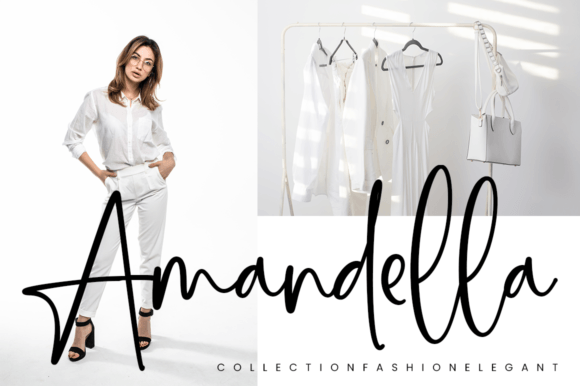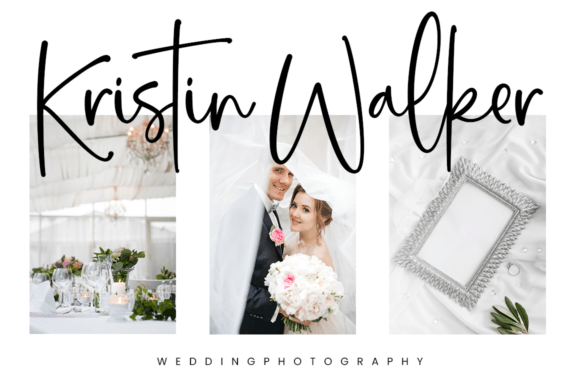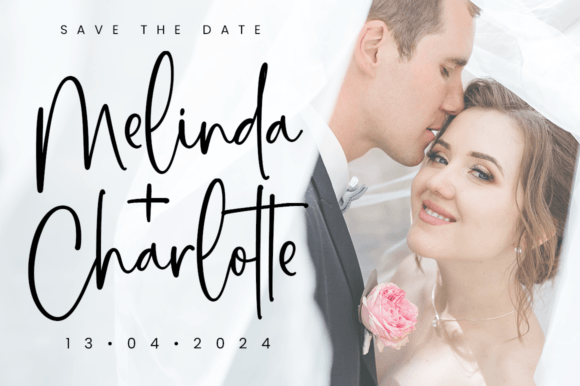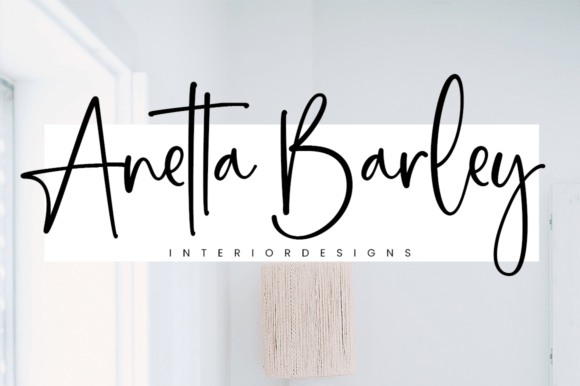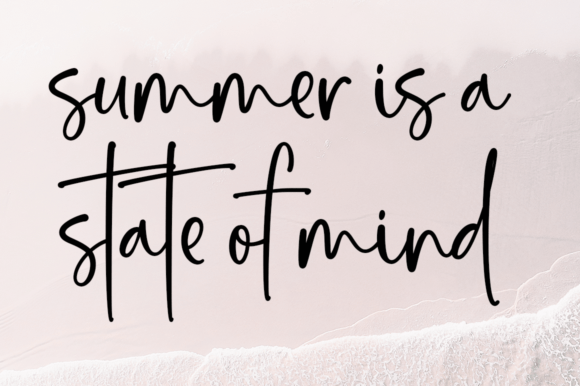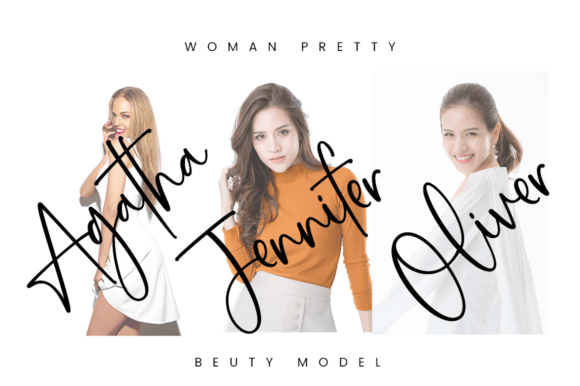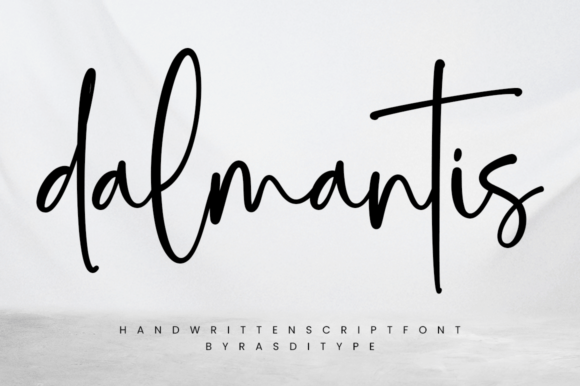
Dalmantis Font: Elevate Your Designs with Elegance and Class
In the world of typography, fonts play a crucial role in conveying the tone and aesthetic of a design. For those seeking a lovely and delicate script font that exudes elegance and class, look no further than Dalmantis. This beautiful font was particularly crafted for designers and crafters who need a refreshing and stunning look to enhance their creations.
The Beauty of Dalmantis
Dalmantis is a script font that boasts a unique and captivating charm. Its delicate strokes and elegant curves make it perfect for a wide range of design applications, from wedding invitations and branding materials to packaging and digital media. The font’s refined and sophisticated appearance is sure to elevate any design, adding a touch of luxury and refinement.
Key Features of Dalmantis
- Delicate and Elegant: Dalmantis features a beautiful, hand-crafted design that showcases a delicate and elegant style, perfect for designs that require a touch of sophistication.
- Script Font: As a script font, Dalmantis offers a fluid and dynamic appearance that adds a personal touch to any design.
- Highly Versatile: Dalmantis is suitable for a wide range of design applications, including print and digital media, making it a valuable addition to any designer’s font collection.
- Easy to Read: Despite its delicate nature, Dalmantis remains highly legible, ensuring that your message is conveyed clearly and effectively.
Uses of Dalmantis
Dalmantis is an incredibly versatile font that can be used in a variety of design contexts. Some of the most popular uses of this font include:
- Wedding Invitations: Add a touch of elegance and romance to your wedding invitations with Dalmantis.
- Branding and Packaging: Use Dalmantis to create sophisticated and eye-catching branding materials, such as logos, business cards, and product packaging.
- Digital Media: Dalmantis is perfect for digital media, including social media graphics, blog headers, and website designs.
- Stationery and Greeting Cards: Add a personal touch to your stationery and greeting cards with the elegant and refined appearance of Dalmantis.
Why Choose Dalmantis?
With so many fonts available, why choose Dalmantis? Here are just a few reasons why this font stands out:
- Unique and Eye-Catching: Dalmantis offers a distinctive and captivating design that will set your designs apart from the crowd.
- High-Quality Design: This font was crafted with care and attention to detail, ensuring a high-quality design that will enhance your creations.
- Elegant and Refined: Dalmantis exudes elegance and class, making it perfect for designs that require a sophisticated appearance.
Dalmantis is a beautiful and delicate script font that offers a unique and captivating charm. Its elegant and refined appearance makes it perfect for a wide range of design applications, from wedding invitations and branding materials to packaging and digital media. With its highly legible design and versatile nature, Dalmantis is an excellent addition to any designer’s font collection. Whether you’re a professional designer or a crafty DIY enthusiast, Dalmantis is sure to elevate your designs and add a touch of luxury and refinement.